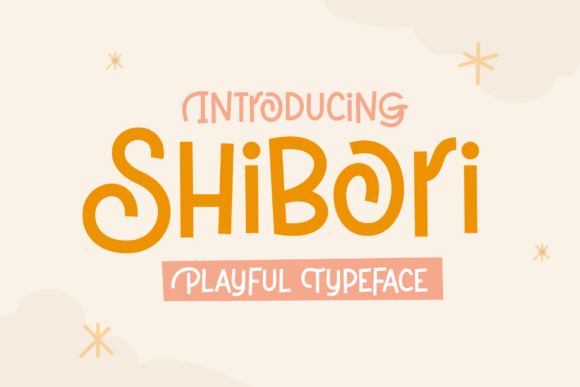
Introducing Shibori Font - A Typographic Masterpiece Designed to Elevate Your Portfolio Designs!
Embark on a creative journey with Shibori Font, a display font that dances with playful elegance and distinct charm. This captivating creation by DUMADI is a symphony of sweet, lively strokes, making it the perfect choice for designers seeking to infuse their portfolios with vibrancy and personality.
With Shibori Font, you hold the key to unlocking a world of design possibilities. Its PUA encoding grants you effortless access to a treasure trove of glyphs and swashes, empowering you to weave intricate typographic tapestries that captivate and enchant.
Picture your portfolio designs transformed into captivating works of art. Shibori Font's playful nature lends itself effortlessly to branding projects, posters, social media graphics, and website designs, adding a touch of whimsy and intrigue to every visual creation.
But Shibori Font's allure extends far beyond its aesthetic appeal. It's a font that speaks to the heart, evoking emotions with every stroke. Its curves caress the senses, while its distinct character whispers stories of joy, love, and adventure.
So, embrace Shibori Font, a font that's not just a design tool, but a gateway to a creative awakening. Let its playful spirit ignite your imagination and create portfolio designs that dance with life and leave a lasting impression.